So … How Do You Pronounce That Font Name? (And Does It Really Matter?)
A guide to tricky pronunciations of font names and type designers
As a graphic designer, I find it difficult to imagine how non-designers see a world where they see no difference between Times Roman and Georgia in their default font menus and they think of Comic Sans as a perfectly reasonable choice for the text of their last will and testament.
That’s because those of us who work with type don’t just see shapes on a page or a screen—we hear them in our minds and feel them in our hearts as we read text. For us, type has a voice, a presence, a personality conveyed through type family, size, and style. It can talk to us softly and with grace and calm, it can scream menacingly and unhinged, or it can land somewhere in between.
The point is, we designers have very human relationships with our fonts. While it’s a stretch to say that we personify them, it’s fun to speculate what they’d be like as people. And we do interact with them in our menus. We welcome them into our workspaces and periodically escort them from our system. (“Go home, Clarendon. You’re drunk.”)
When we work with them, or discuss them with clients, employers, and colleagues, we refer to all these fonts by their names.
And much more often than we think, we’re butchering their intended pronunciation.
Learning on Paper
If we approach our profession with a love of craft and a respect for its history, why don’t we do a better job of learning this information?
At least in the United States, you can laser print a door sign and call yourself a graphic designer without any sort of training or education. Many of us worked at publications and were mentored by editors or other pros who use type but don’t necessarily know much about it.
And many of us are self-taught or got good at using design software through raw brute force of will.
I can think back to my high school days in the 1980s when I worked for a community newspaper and found the Compugraphic type catalog in a pile of documentation that came with the phototypesetting machine (which offered only knockoff versions of Times and Helvetica). I’d start recognizing recurring typefaces of the era and would pore over the glossy pages of specimens like someone looking over mug shots in a bad police procedural.
Figure 1. The c. 1982 Compugraphic type specimen book could let a young designer learn typeface names in print—silently.
The point is, I hardly ever heard any of those typeface names spoken out loud, even at work. Here I was, a kid from a country town of 500, getting to know this melting pot of historical type samples, foreign names, and geographic provenance only in print. I’m more surprised that I pronounced any of these font names correctly.
When for so many of us our introduction to these graphic personalities comes not from the spoken word but silently, through print, it’s no wonder we perpetuate these mispronunciations, sometimes for years at a time.
And these misunderstandings can be intergenerational, too. You can be a really good designer and start referring to SAY-bun in your design studio (Figure 2). Nobody’s going to pull you aside and tell you it’s Sah-BONE, because they probably don’t know any better, either. Meanwhile, your next cohort of wide-eyed interns are going to go out into the world and start the cycle anew.
Figure 2. Sabon (Sah-bone), by Jan Tschichold (TCHEE-kold)
‘What They Were Calling It, I Have No Idea’
One of today’s most prolific type designers, David Jonathan Ross, agrees with this notion. “Most people who have been using these fonts have the pronunciation in their head,” Ross said. “They’ve read the name a million times. But out loud? They’re not sure.”
I reached out to Ross, who lives one town over from me, to get a perspective from today’s typographic artists and craftspeople who agonize over every Bézier curve (which I pronounced BEE-zee-ur for about 12 years).
These professionals kern every glyph lovingly and build every alphabet from the ground up. For every typeface that ends up as an OTF file, they make a whole that’s greater than the sum of its parts. Naturally, I wondered: Would mangling the name of a font be kind of like screwing up the name of their kid?
A prolific type designer who spent years working for the Font Bureau, Ross didn’t immediately see mispronunciation as an issue, but the names of the families in his own type library—among them Bungee, Condor, Fern, Fit, and Turnip—don’t exactly lend themselves to confusion, at least in U.S. English.
He suggested I contact James Hultquist-Todd of JTD Design, who, Ross said, has “the highest occurrence of tricky-to-pronounce font names in all of contemporary foundrydom.”
“I say that with admiration,” Ross quickly noted.
Hultquist-Todd got right back to me. “I’m bad at naming,” the Philadelphia-based type designer wrote ruefully.
“My first family, Garvis, started the trend,” he said. “It suffers the same fate as GIF (or JIF). I remember I was in The Netherlands once and I said it out loud (“Jarvis”), and someone said they never would have guessed it was pronounced that way; what they were calling it, I have no idea.”
JTD Design’s font family offerings (Figure 3) include Parabolica, Oculi, Gastromond, Garvis, Essonnes, Enfilade, and Elfreth.
Even Hultquist-Todd pronounced Essones incorrectly, and a French speaker corrected him.
“I was saying ‘Ess-on-nay’ when it should be ‘Ess-on,’ he said.
Figure 3. Some of the type families from James Hultquist-Todd and JTD Design available via Adobe Fonts
The View From the Comments
Buoyed by my success at talking to two rock stars of contemporary typography, I decided to take the discussion to the comments section.
When I asked the Type & Typography Facebook group whether font mispronunciation matters (Figure 4), one designer, Marie Varney, had strong feelings about not having strong feelings about it.
“I don’t care one bit, speaking as [a] designer who learned my craft in the ’60s at art college and worked in graphic design after,” she wrote. “I mispronounce all the time. It doesn’t mean I don’t know my Univers from Helvetica or Grotesque.”
(She also asked: “Why [for f—’s sake] do you really want to know?”)
Other group members shared some fun stories about mispronunciations. “Back in the ’90s, I worked with a designer who was probably in her 60s that pronounced Frutiger ‘Froo-tiger’ (like the animal) and Tiepolo ‘Tie-Polo,’” Dave Ellison wrote.
Lindsay Gresham Fulton observed that pronouncing Univers as oon-i-vair is like calling Paris Paree. “I think using Anglicized pronunciation is fine,” she said.
Some of the group members who responded to me also noted some good malapropisms. People tend to say “Veranda” instead of “Verdana,” for instance, noted Laurence Penney.
“I sometimes say Plankton instead of Plantin,” Robert Paul Richardson said. “I know perfectly well that it’s Plantin, but Plankton is more fun sometimes.”
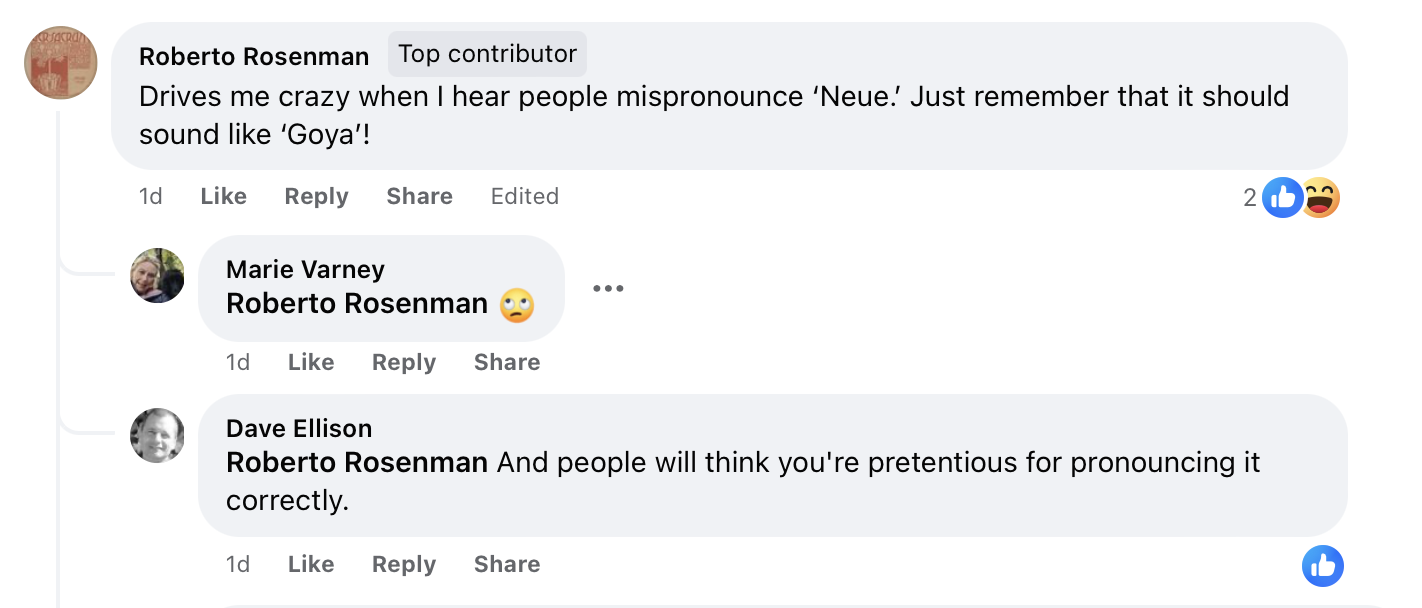
Figure 4. I invited members of the Type & Typography Facebook group to weigh in about type name mispronunciation.
‘I Would Never Be Annoyed’
Some designers will always urge us all to take the intellectual high road with articles (including type expert Ilene Strizver on this very website in 2009) that gently offer us a primer on how to accurately pronounce the names of the fonts we’re most likely to be using.
But the efforts to keep us pronouncing type names as originally intended is likely not going to gain a whole lot of momentum. It’s more of a curiosity and not a big deal.
Hultquist-Todd observed that legal complications have required him to rename entire type families at the eleventh hour.
“Naming is tough,” he said. “I’ve long thought about going to a number system like they used to do back 120 years ago,” potentially calling releases “JTD Gothic No. 1,” etc.
“We’ll see if I ever get that desperate,” he said.
In the meantime, mispronunciation of his hard-to-pronounce type families just doesn’t bother him.
“I would never be annoyed by anyone mispronouncing any of my names,” Hultquist-Todd said. “If people are talking about my fonts at all, I’m happy!”
Here are some samples from some type families with names that are hard to pronounce, taken from a few lists of perennial favorites and the trending fonts at myfonts.com. It also incorporates pronunciations compiled by typographic expert Ilene Strizver for CreativePro in 2009. For some of these, you’ll have to decide on how much you want to lean into the accent of the type designer. Dial it back if you’re hearing giggles and snorts from your colleagues.
Fonts
- Aachen AH-kin
- Antique Olive: ahn-TEEK oh-LEEV (feel free to throw in an “ooh-lala” while you’re at it)
- Arnold Böcklin: AH-nold BEH-kleen
- Avenir: av-eh-nir
- Bauhaus: BOW-house (rhymes with how, cow)
- Caflisch: cuh-FLEESH
- Cheltenham: CHEL-ten-um
- Didot: Dee-DOUGH
- DIN: din (an acronym for Deutsches Institut für Normung, German Institute for Standardization)
- Eurostile: ay-uro-STEEL-ay (Or, at least don’t say “your-o-style”)
- Fenice: feh-NEE-tchay
- Fette Fraktur: FET-teh FRAK-tour
- Helvetica Neue: hel-VEE-tee-ca NOY-uh (If the first part is too pretentious for you, just remember the “NOY-uh” bit)
- Kabel: KAH-bel
- Korolev: kah-rah-lehf
- Lucida: LU-sih-da
- Meta: meeta
- Microgramma: meek-ro-GRAM-ma
- Novarese: no-va-RAY-zuh
- Mistral: MEE-strul
- Peignot: PEN-yoh
- Plantin: Plahn-TEN
- Sabon: Sah-BON
- Univers: OON-i-vair
- VAG Rounded: An acronym for “Volkswagon Audi Group,” pronounced, according to a former auto dealer, as “bag with a V.” As this was discussed on Reddit, other alternative pronunciations were offered.
Designers
- Benguiat: BEN-gat
- Bodoni: buh-DOUGH-nee (not “Bo-DEE-nee”)
- Goudy: GOW-dy
- Koch: Kock (ending in a hard k as in lock) or Kocch (with a gutteral ch as in chutzpah)
- Tschichold: Tchee’ -kold
- Zapf: tsAHpf